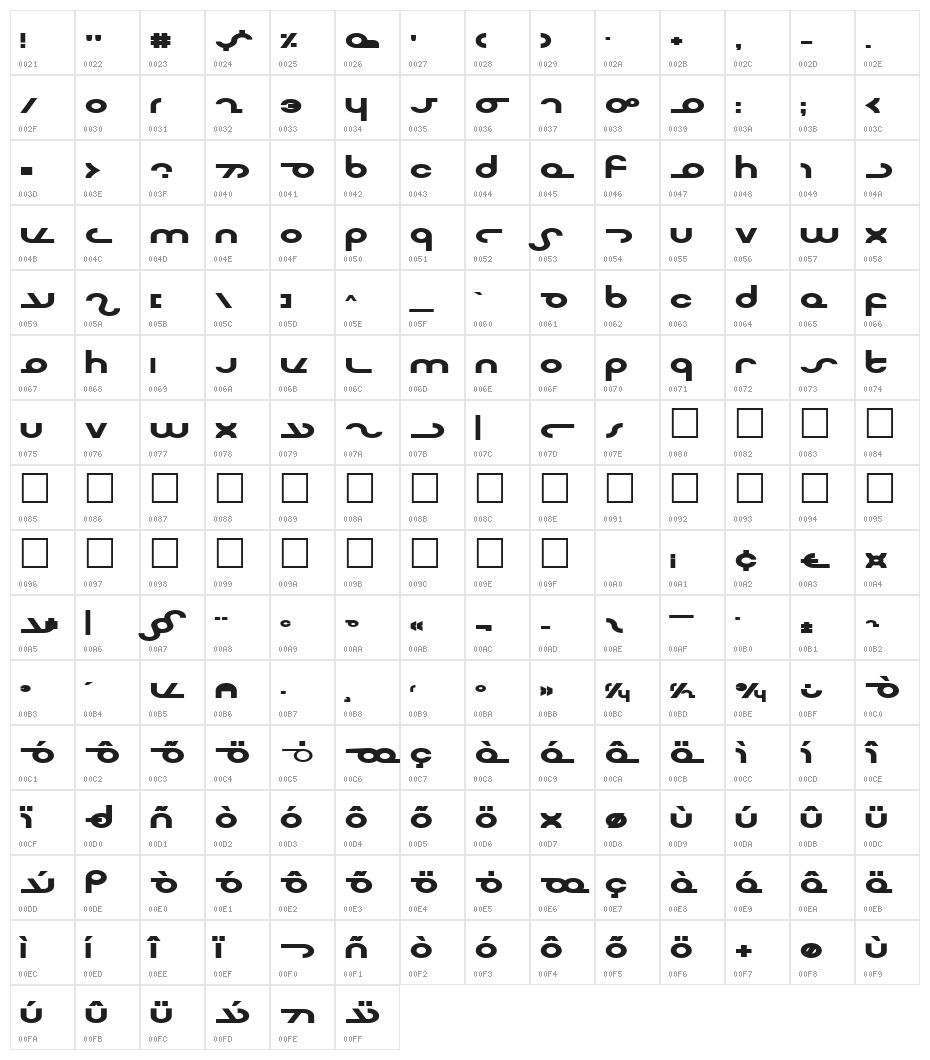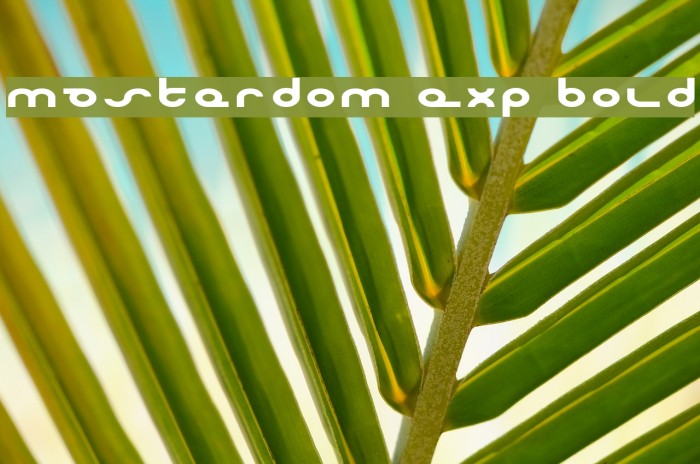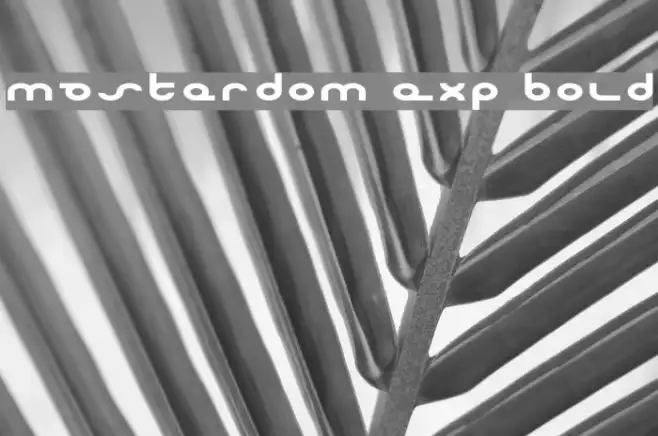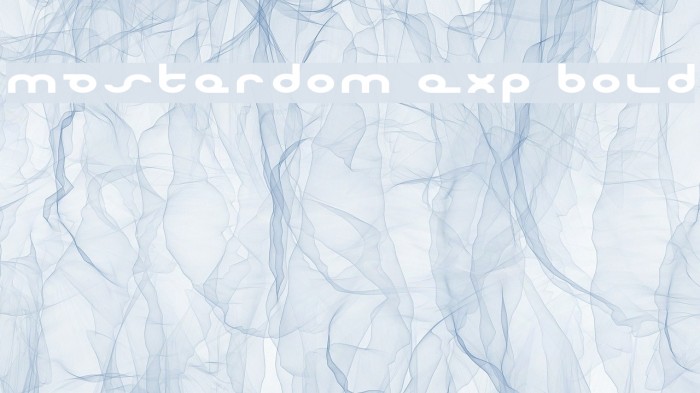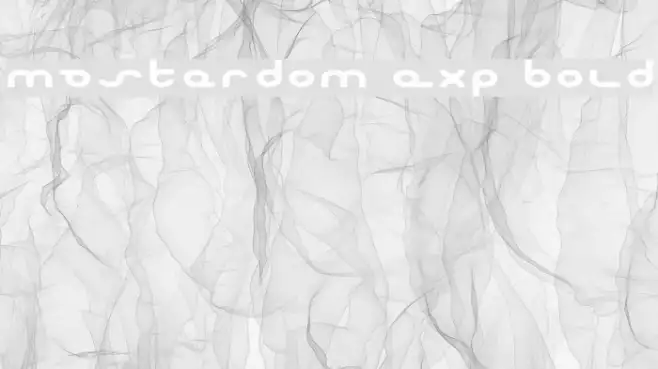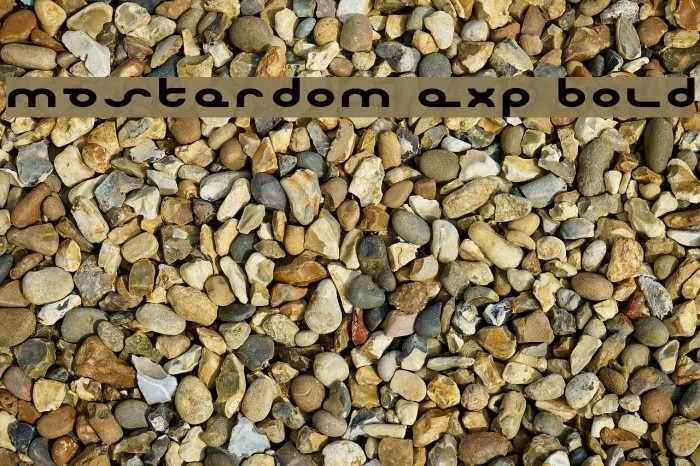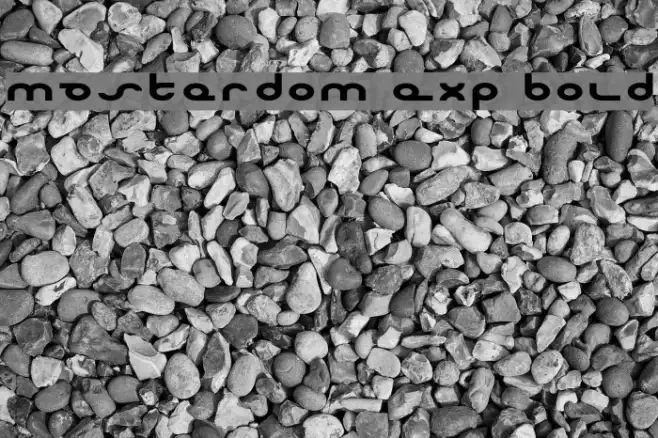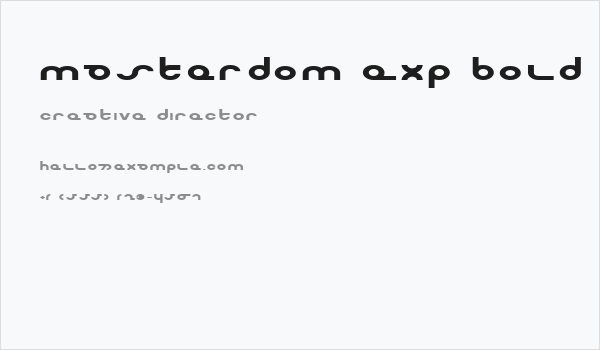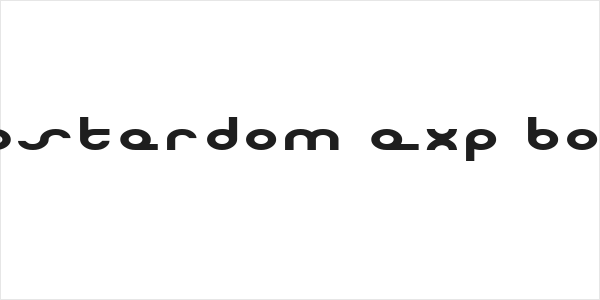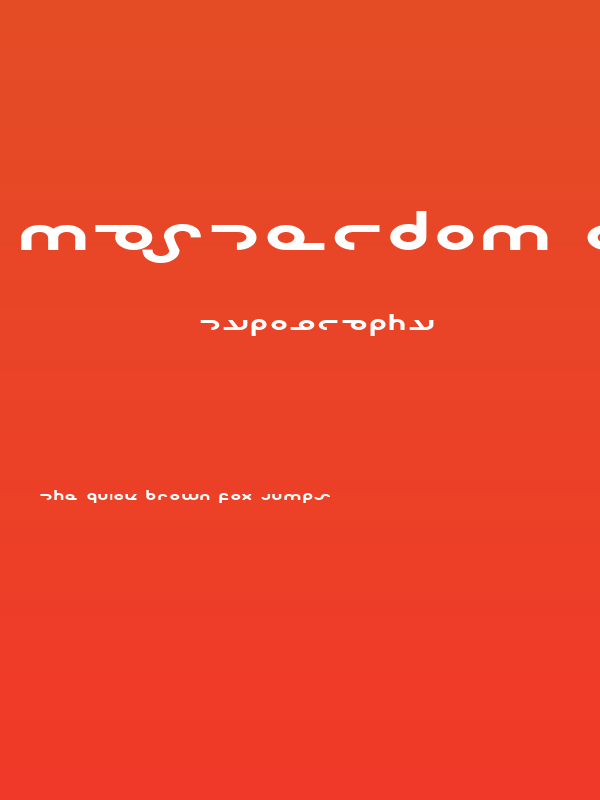
Masterdom Exp Bold Font
Masterdom Exp Bold Description
This font features a bold and futuristic design with a distinct geometric style. The characters are composed of smooth, rounded edges and consistent stroke widths, giving it a modern and sleek appearance. The uppercase and lowercase letters maintain a uniform height, contributing to a cohesive look. The numerals and special characters follow the same design principles, ensuring visual harmony across all elements. The font's unique style makes it stand out, with a playful yet sophisticated vibe that can capture attention in various design contexts.